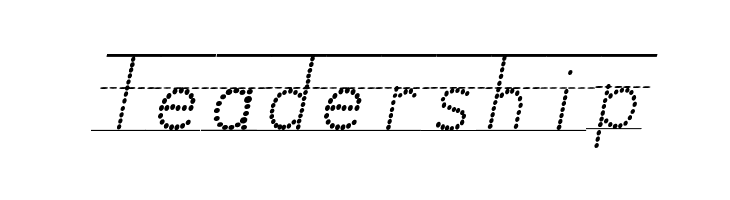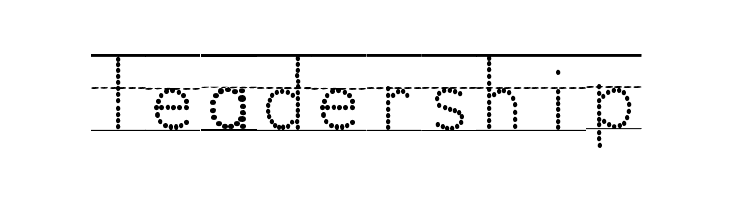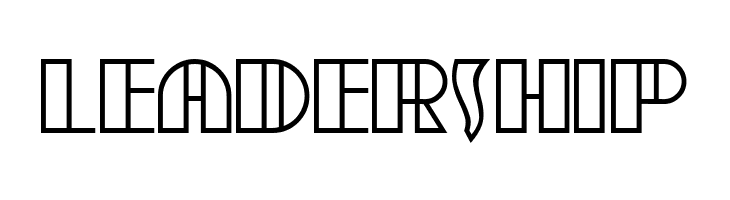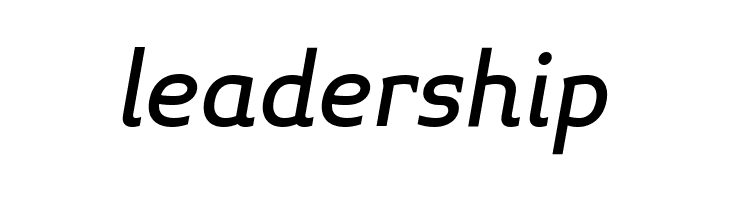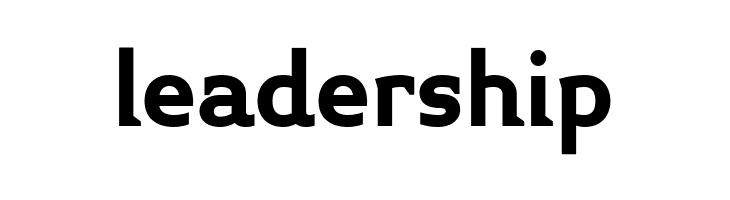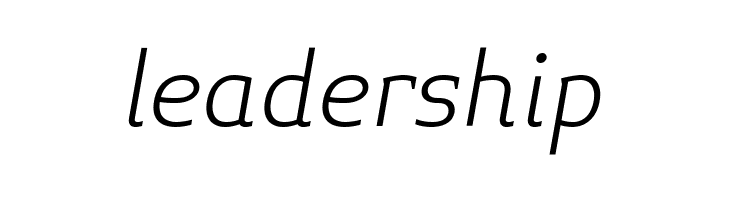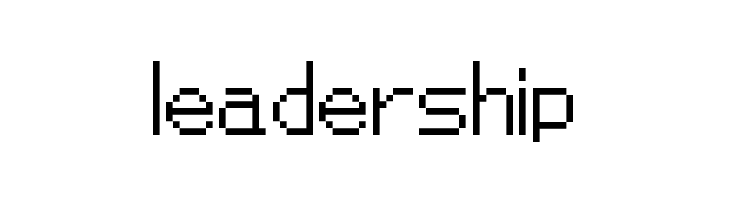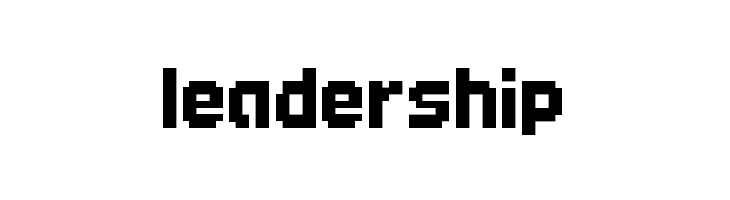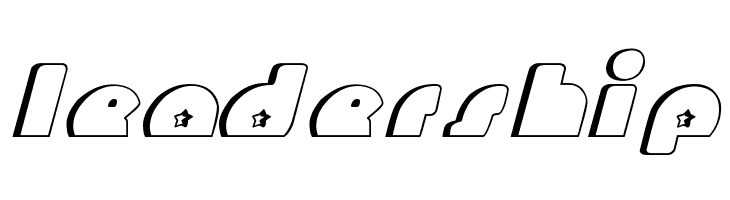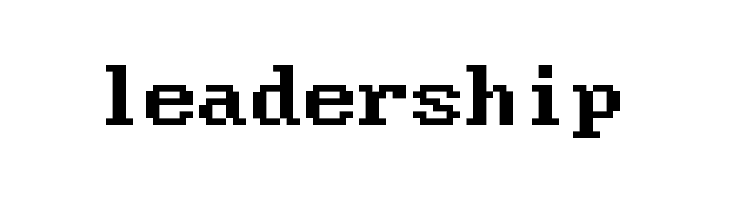
A bold serif font with strong, classic serifs and a professional appearance.
A bold, italic serif font with a dynamic and elegant style.
An elegant serif font with an italic slant and light weight, perfect for formal and sophisticated designs.
A modern serif font with elegant italics and medium weight.
A modern, light serif font with elegant proportions and subtle serifs.
A modern serif font with medium weight, offering clarity and versatility.
A playful, bold font with star cutouts and a modern outline style.
A bold, hand-drawn font with a playful and energetic style.
A bold, pixelated font with a retro, digital style.
A bold, gothic-style font with sharp, angular lines and intricate details.
A bold, jagged gothic font with sharp, angular characters.
A calligraphic font with bold, sweeping strokes and dynamic contrast.
A dotted, educational font ideal for handwriting practice.
A dotted, italic font ideal for handwriting practice and educational use.
A modern, geometric font with rounded edges and a minimalist design.
A bold, rounded font with a modern and playful style.
A modern, monospaced font with rounded edges and consistent stroke weight.
A bold, geometric font with sharp angles and a blocky appearance.
A pixelated, monospaced font with a retro digital aesthetic.
A pixelated, retro-style font inspired by early computer systems.
A pixelated, monospaced font with a retro digital style.
A pixelated, monospaced typeface inspired by classic DOS aesthetics.
A pixelated, monospaced font with a retro digital aesthetic.
A playful and elegant script font with a handwritten quality.
A bold, geometric font with a modern and striking design.
A modern geometric font with bold, angular shapes and clean lines.